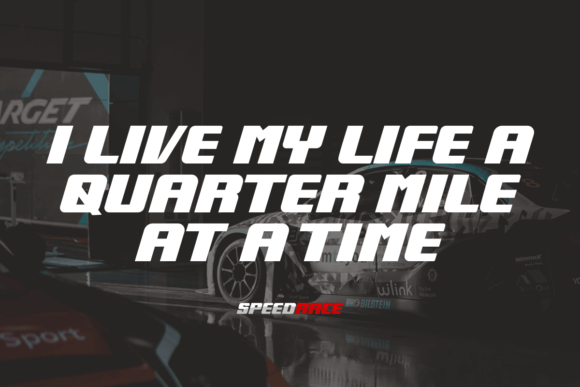
Speedrace Font
Speedrace is a cool Esport display font inspired by speed, race, Sci-Fi movies about battle scenes, and big corporations. Its unique style makes it incredibly fitting to a large pool of designs. The only limit is your imagination!